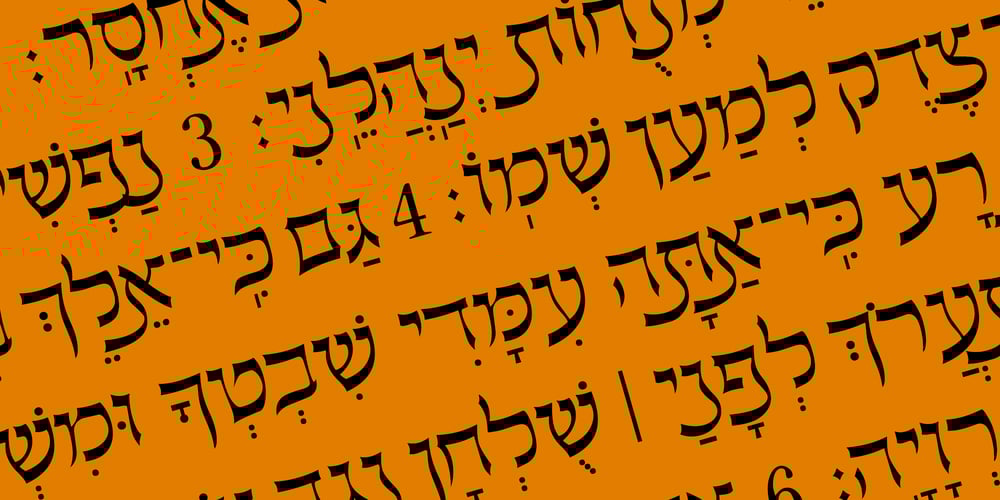
Hebrew Meyer
Hebrew Meyer font
Hebrew Meyer Font Family was designed by Sami Artur Mandelbaum and published by Samtype. Hebrew Meyer contains 1 styles and family package options. This is a new beautty classic font.This font is usually use in invitattions, small texts, book covers and monograms